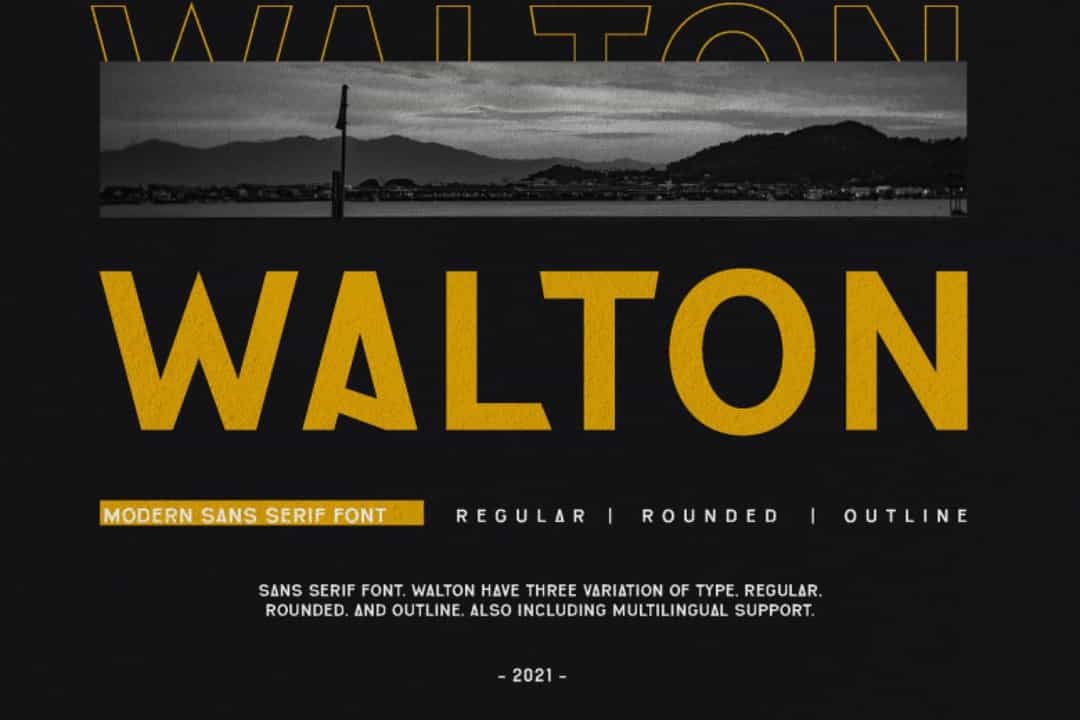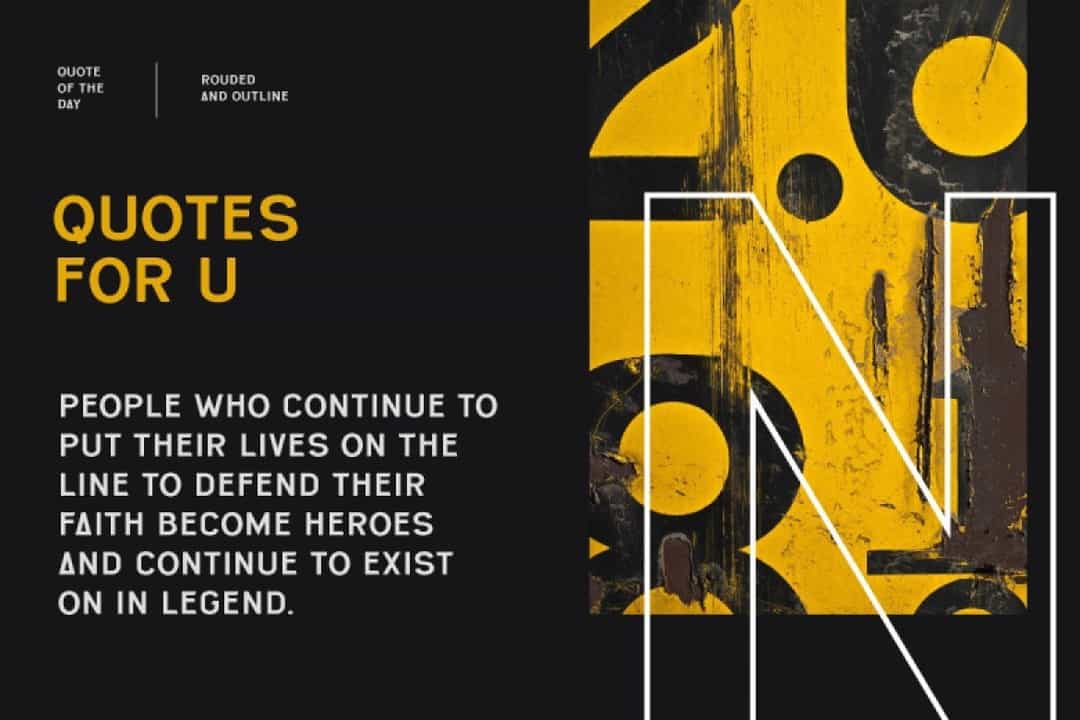
Walton is an impressive and thickly lettered sans serif font that will add elegance and distinction to any work project. Walton makes any work more visually appealing! It makes any font library more complete.